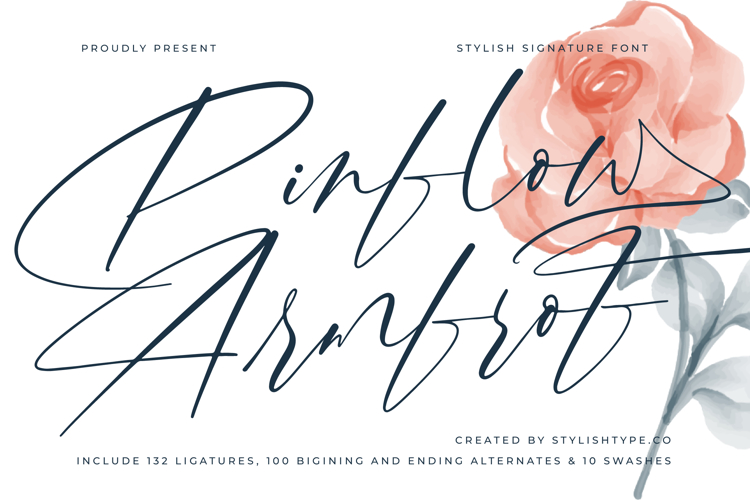
Pinflow Armfrof - Stylish Signature Font
Pinflow Armfrof is a stylish signature font that merges the essence of modern elegance with the natural charm of handwritten calligraphy. Featuring 132 ligatures, 100 beginning and ending alternates, and 10 beautiful swashes, this font provides outstanding creative flexibility for designers who want to craft unique and expressive lettering compositions. Each stroke was carefully designed to appear fluid, authentic, and refined, making this font ideal for projects that demand a balance between luxury and personality.